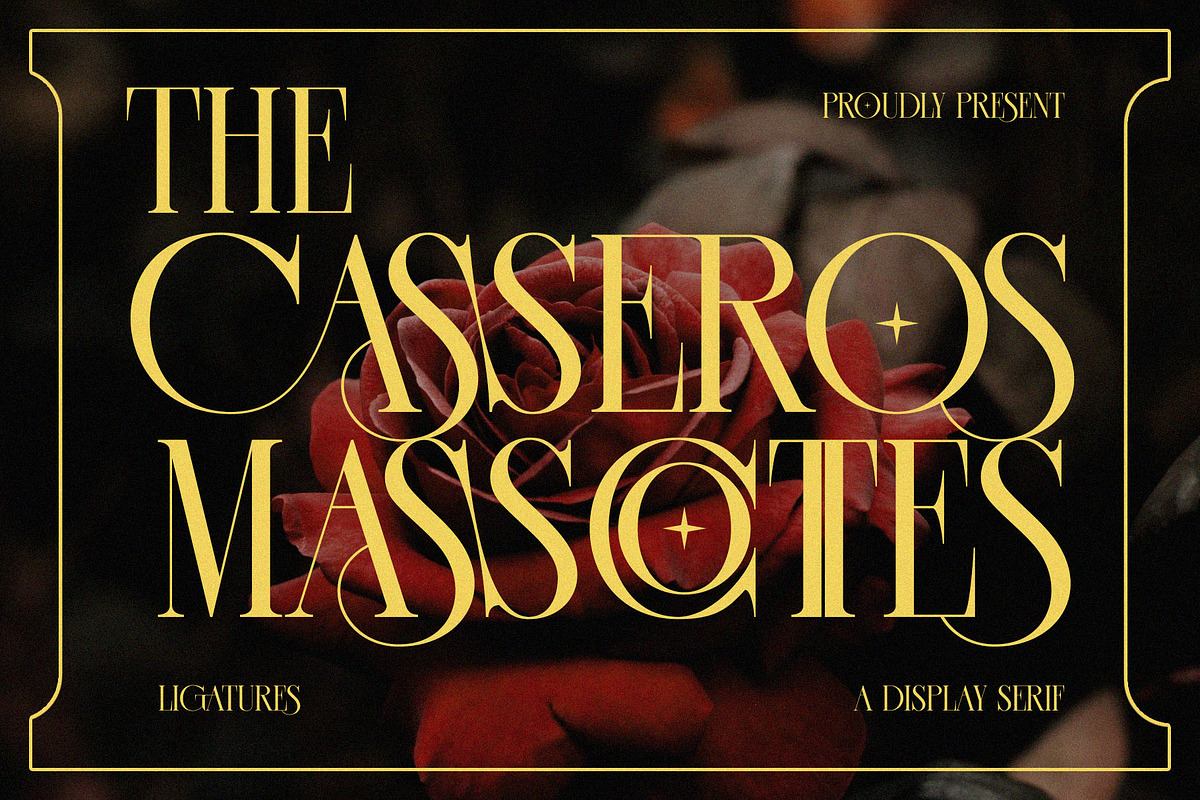
CASSEROS MASSCOTTES Elegant Serif Free Download
CASSEROS MASSCOTTES Elegant Serif Font Free Download
CASSEROS MASSCOTTES Elegant Serif Font Free Download is a luxurious and refined serif typeface with a modern flair. Featuring high-contrast strokes, sharp serifs, and graceful curves, this font is perfect for upscale branding, fashion editorials, magazine headlines, logos, wedding invitations, and premium product packaging.
Its elegant ligatures and stylistic alternates add a sophisticated, designer-quality touch to your typography. Whether you're aiming for timeless chic or modern minimalism, CASSEROS MASSCOTTES Elegant Serif Font Free Download adapts beautifully across both print and digital formats.
Elevate your design aesthetic with CASSEROS MASSCOTTES Elegant Serif Font Free Download, and create stunning, high-impact visuals that exude class and creativity. Perfect for creatives who demand elegance in every detail.